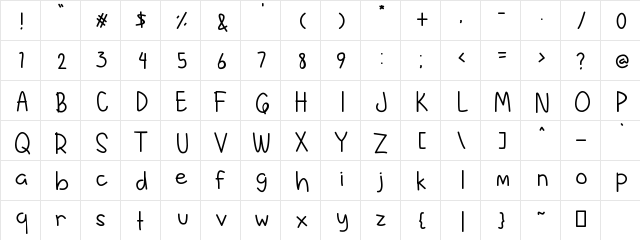
Baby Shrimp Regular
Design Context for Baby Shrimp Typeface
Baby Shrimp offers clean, dependable letterforms without strong stylistic allegiance, making it a practical choice for designers who need flexibility.